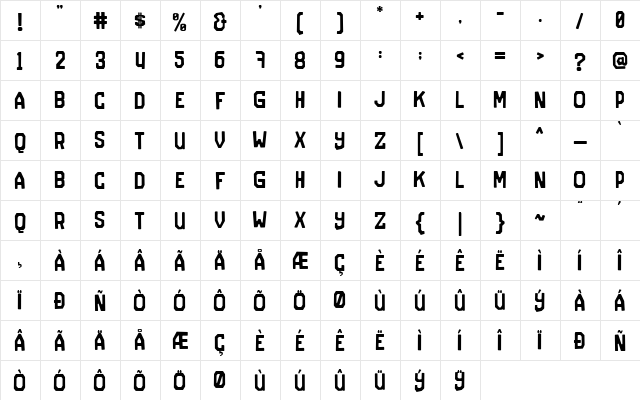
The Jersey Regular
Design Context for The Jersey Typeface
The Jersey has the bold swagger of sports branding: strong, assertive letterforms designed to dominate headlines and jerseys alike.
Built for sports team identities, athletic apparel, event posters, and high-energy promotional material.
Font Pairing: Use alongside a condensed or geometric sans for supporting copy — keep the pairing bold, functional, and free of ornament.
Pro Tip: The Jersey thrives on contrast — try it large, bold, and tight against a clean background for maximum visual impact.